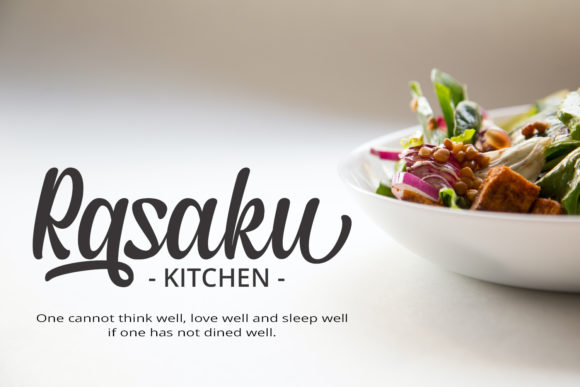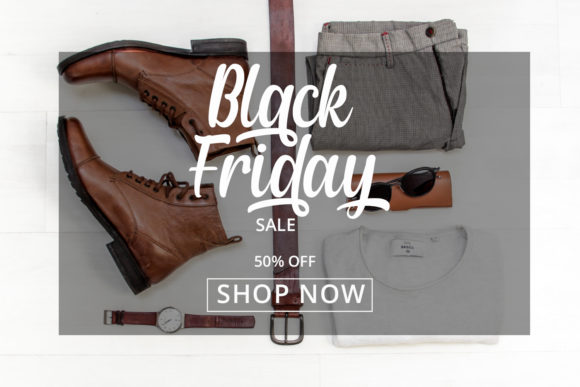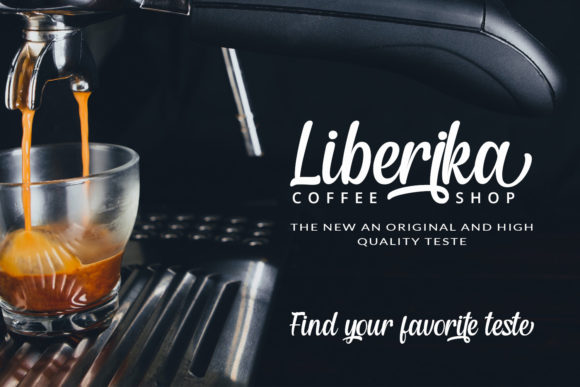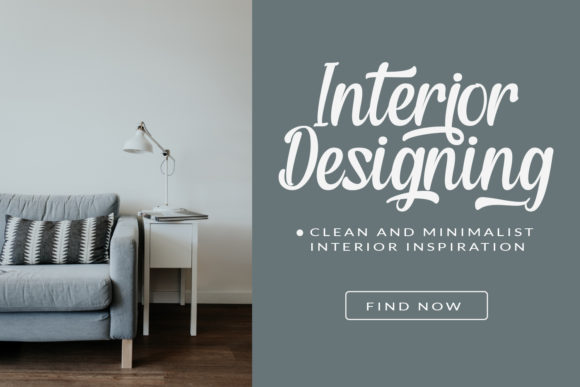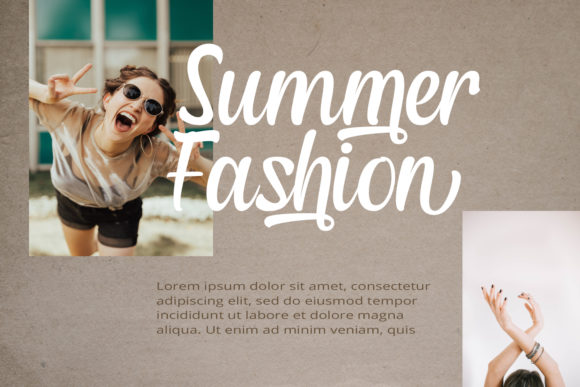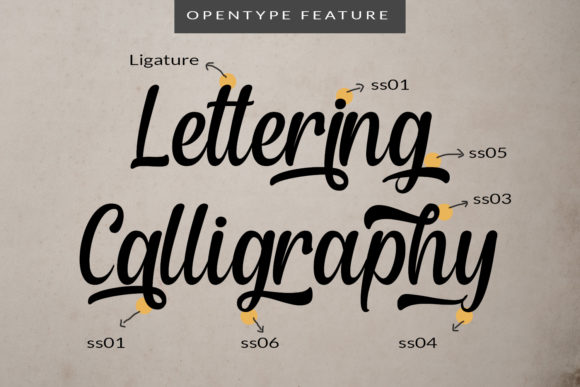
Adding a Touch of Nostalgia to Your Designs
Have you ever been working on a project, and suddenly, a spark of creativity hits you? Maybe it’s a conversation with a friend, a beautiful sunset, or a vintage photograph that inspires you to create something truly unique. For me, it was a trip to a local flea market that sparked the idea for a new font – Fanday Font. I fell in love with the eclectic mix of vintage posters and handwritten signs that seemed to leap off the shelves.
Fanday Font is a gorgeous and bold handwritten font, crafted to give your headlines and logotype projects a stylish touch. It reads as strong, confident, and dynamic, adding tons of nostalgic character to your designs. With its PUA encoding, you can access all of the glyphs and swashes with ease, making it a valuable tool for designers looking to add a personal touch to their work.
Fanday Font Key Features
- Font Size: The font family includes 6 different font sizes, ranging from 18pt to 72pt, providing flexibility for various design applications.
- Resolution: The font is designed for high-resolution displays, with a minimum resolution of 300 DPI, ensuring crisp and clear text rendering.
- Unique Characteristics: Fanday Font features a unique, hand-drawn style with intricate details and flourishes, making it ideal for creative and artistic applications.
- Language Support: The font supports a wide range of languages, including Latin, Cyrillic, and Greek scripts, making it suitable for international designs.
- Font Styles: The font family includes 12 different font styles, including regular, italic, bold, and bold italic, providing versatility for various design needs.
Fanday Font Review
Overall, I’m quite impressed with the Fanday Font. Here are some of its standout features:
- ✨ Beautiful, elegant script style that adds a touch of sophistication to any design project.
- ✨ High-quality font files with smooth curves and precise lines.
- ✨ Compatible with a wide range of operating systems and software.
- ⚠️ Limited font size and style options. While the script style is beautiful, it may not be the best choice for projects requiring bold or italic fonts.
- ⚠️ Not as versatile as some other fonts, making it less suitable for projects requiring multiple font styles.
- ⚠️ Some users may find the font’s elegance to be overly ornate or difficult to read in certain contexts.
Despite these limitations, I think the Fanday Font is a great choice for designers looking to add a touch of elegance to their projects. Its beautiful script style and high-quality font files make it a great addition to any design library.
The Fanday Font is ideal for creating fun and playful designs, such as:
- Party invitations
- Wedding graphics
- Social media graphics
For best results, use the Fanday Font in bold or italic styles to add emphasis and visual interest.